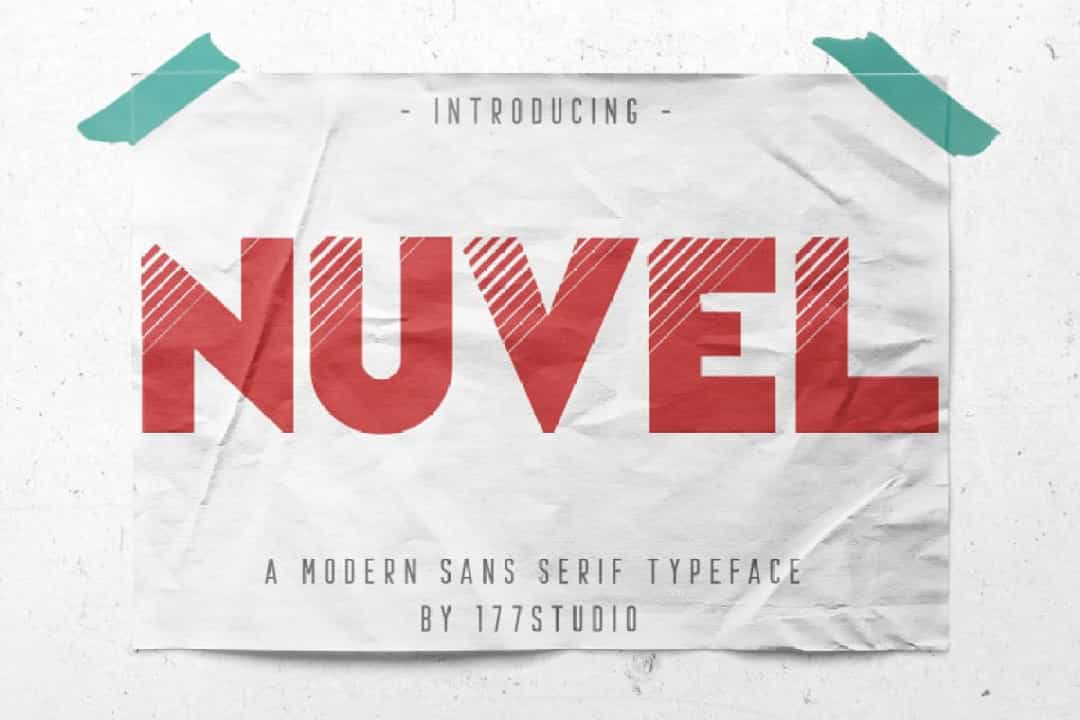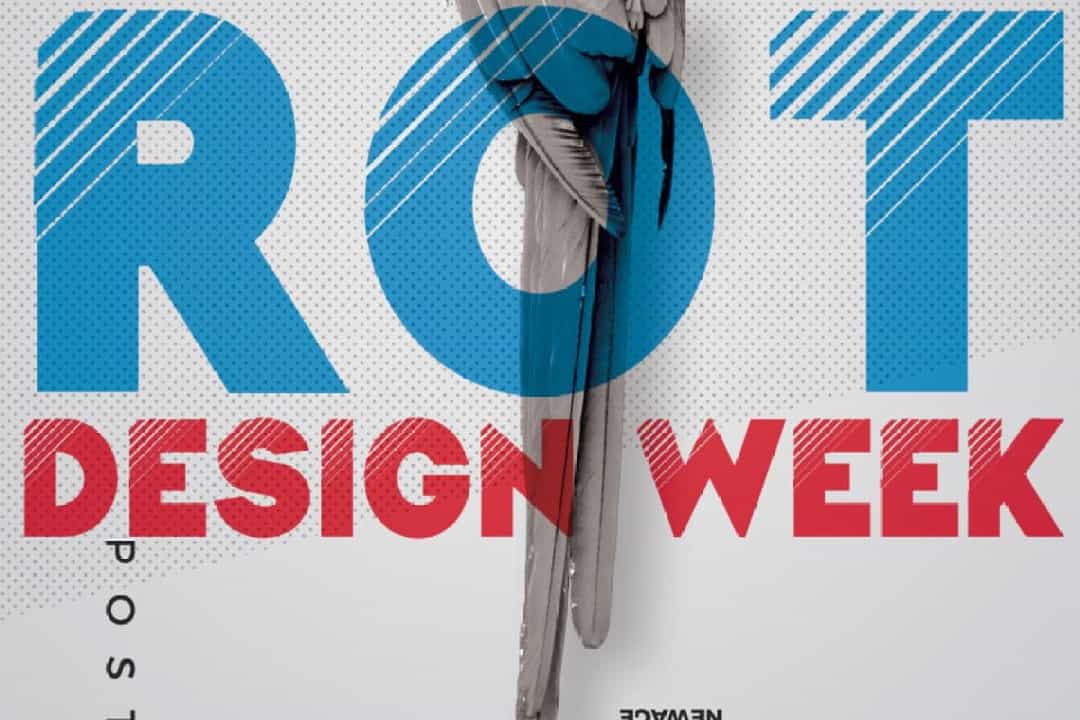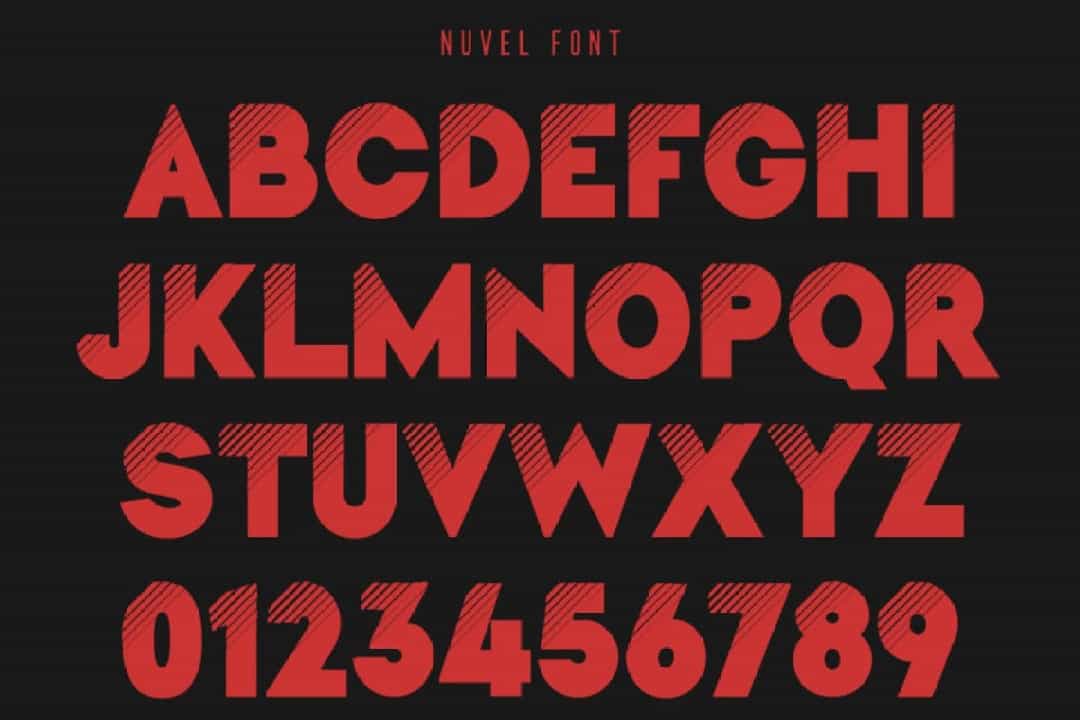
Nuvel is a display font that belongs to the Sans-serif category and is suitable for formal and business design works. This font is quite bold yet does not come off as obnoxious and is perfect for highlighting large headings or titles; can also be used for singe lettering or short descriptions.